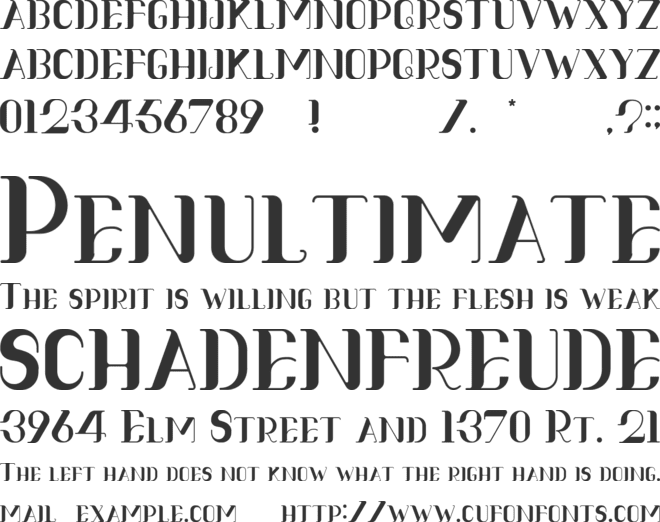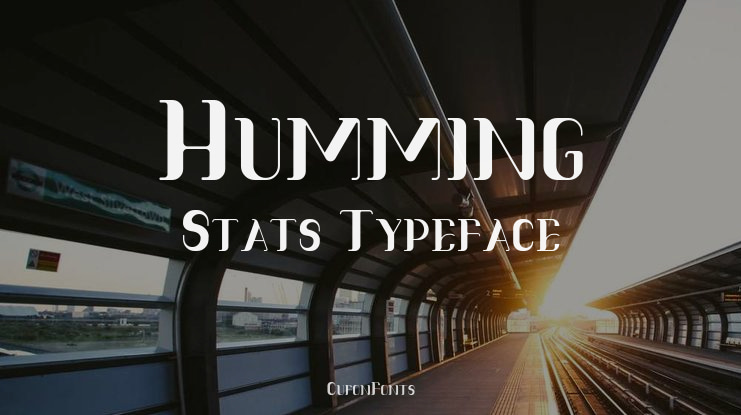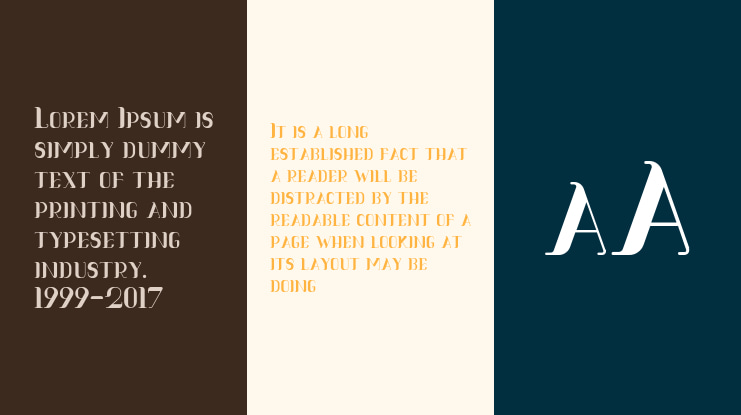
Humming Stats Font
Humming Stats is a modern editorial display serif with elegant, high-contrast letterforms — thick stems paired with ultra-thin hairline accents and unexpected open stencil breaks. Its polished, upscale presence commands gallery-worthy attention, making it perfect for fashion magazine mastheads, luxury boutique logos, editorial book covers, art gallery signage, and cosmetics packaging. The sophisticated characters bring avant-garde authority to every design.